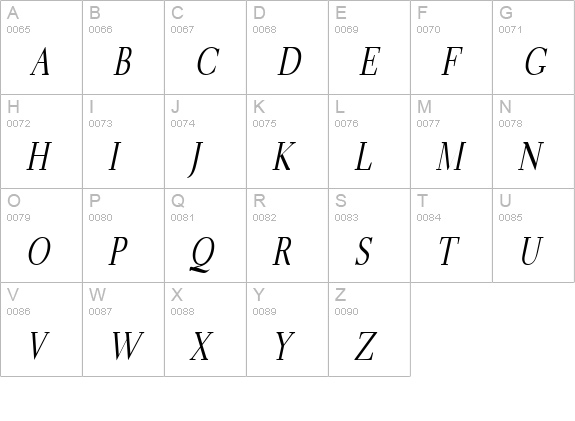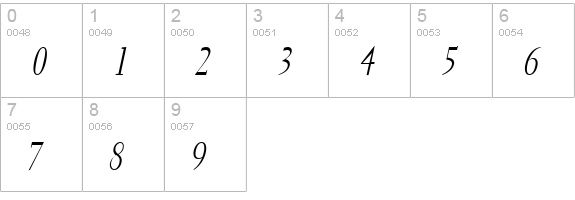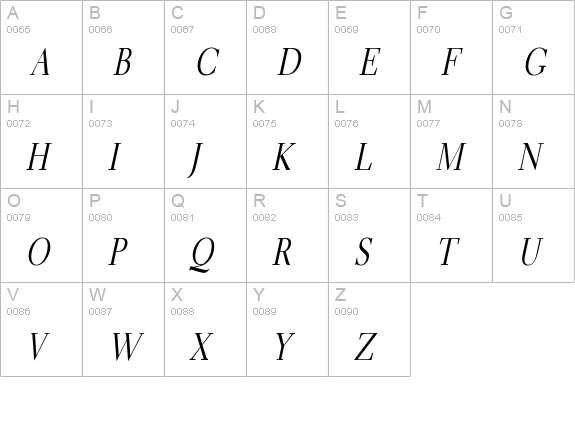
Transit 2 Condensed Italic is a distinctive, condensed-width, italic variant in the Transit typeface family \xE2\x80\x94 well suited to design and typography projects.
Transit 2 Condensed Italic font is a sleek and modern typeface that exudes elegance and sophistication. Its condensed design adds a touch of professionalism to any project, making it perfect for branding, logos, and headlines. This font features a stylish italic style, adding a subtle slant to the letters that adds a sense of dynamic movement and flair. The condensed nature of the font allows for more text to fit into smaller spaces, making it ideal for projects where space is limited, such as brochures, flyers, and posters. With its clean lines and sharp edges, Transit 2 Condensed Italic font is sure to make a lasting impression. It effortlessly combines legibility with a contemporary aesthetic, making it a versatile choice for both print and digital designs. One of the best things about Transit 2 Condensed Italic font is that it is free! Yes, you read that right. This font is freely available to download at FontsMarket.com. Whether you're a professional designer or a casual hobbyist, you can now enjoy the benefits of this beautiful font without any cost. So why wait? Enhance your design projects with the sleek and stylish Transit 2 Condensed Italic font. Download it for free at FontsMarket.com and take your designs to the next level.